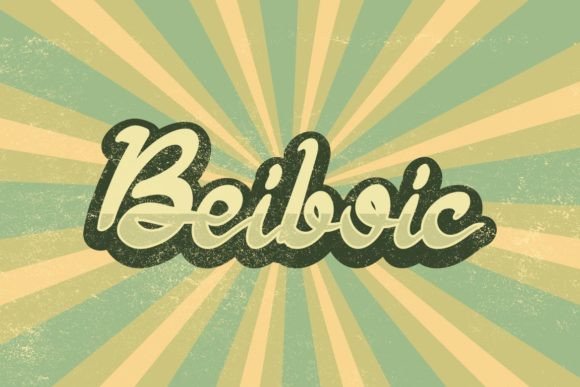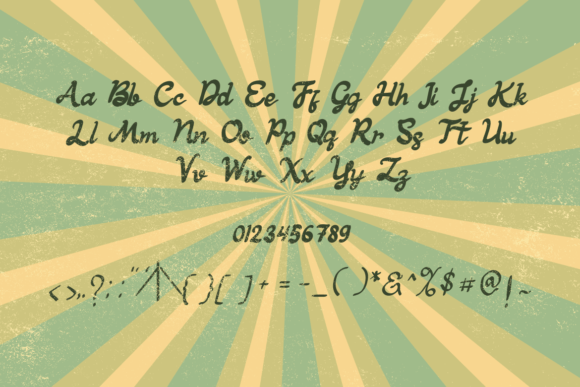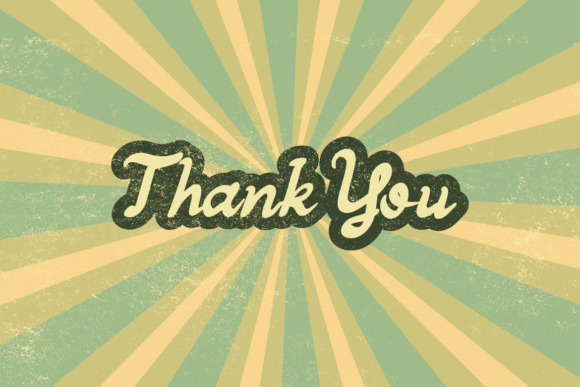
Add a lovely and fun vibe to your projects with the Beiboic font. This handwritten script brings an incredibly joyful touch to your designs. It is perfect for a wide range of creative ideas, from greeting cards and posters to social media posts and branding.
The Beiboic font stands out with its playful and charming style. Use it to add personality and warmth to your work. Whether you’re designing invitations, logos, or digital artwork, this font makes your creations stand out.
Each character is crafted with smooth and lively strokes that create a polished yet friendly look. The font balances artistic flair with excellent readability, making it ideal for headlines, quotes, logos, and decorative text.
Despite its fun and lively style, the Beiboic font remains highly readable at various sizes. Whether used for bold titles or subtle accents, it adapts beautifully. Its versatility makes it suitable for many creative projects.
Using this font will help your designs capture attention with a joyful and memorable style. If you want your work to look friendly and unique, the Beiboic font is an excellent choice.
In summary, the Beiboic font fits many creative needs. From greeting cards and branding to posters and social media, it brings charm and energy. Download it today and create stunning, delightful designs with a lovely handwritten script.